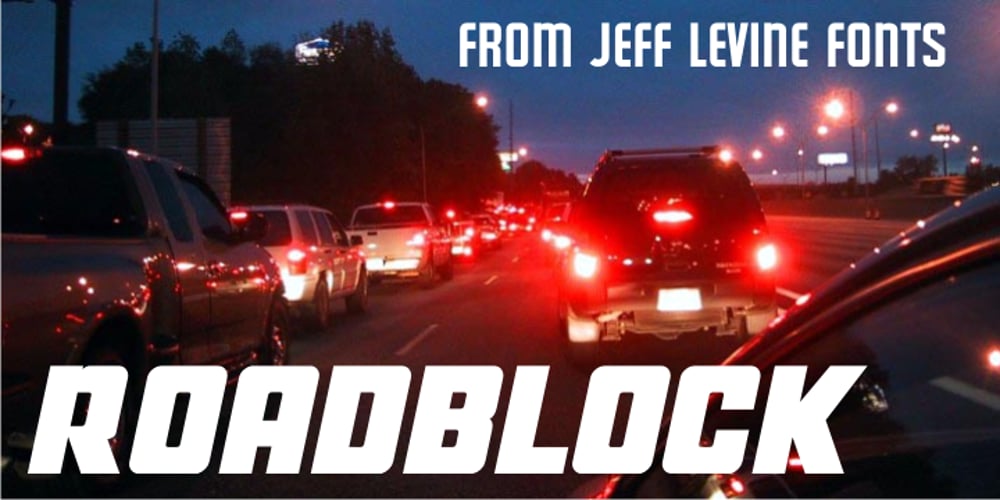
Roadblock JNL
Roadblock JNL font
Roadblock JNL Font Family was designed by Jeff Levine and published by Jeff Levine. Roadblock JNL contains 1 styles and family package options. Roadblock JNL is the solidified and slanted version of Patriotica JNL –a stars and stripes font based on lettering by the late Alf R. Becker as commissioned by Signs of the Times® magazine. Thanks to Tod Swormstedt of ST Publications, Inc. and the American Sign Museum in Cincinati, Ohio for providing source material for use as a work model.